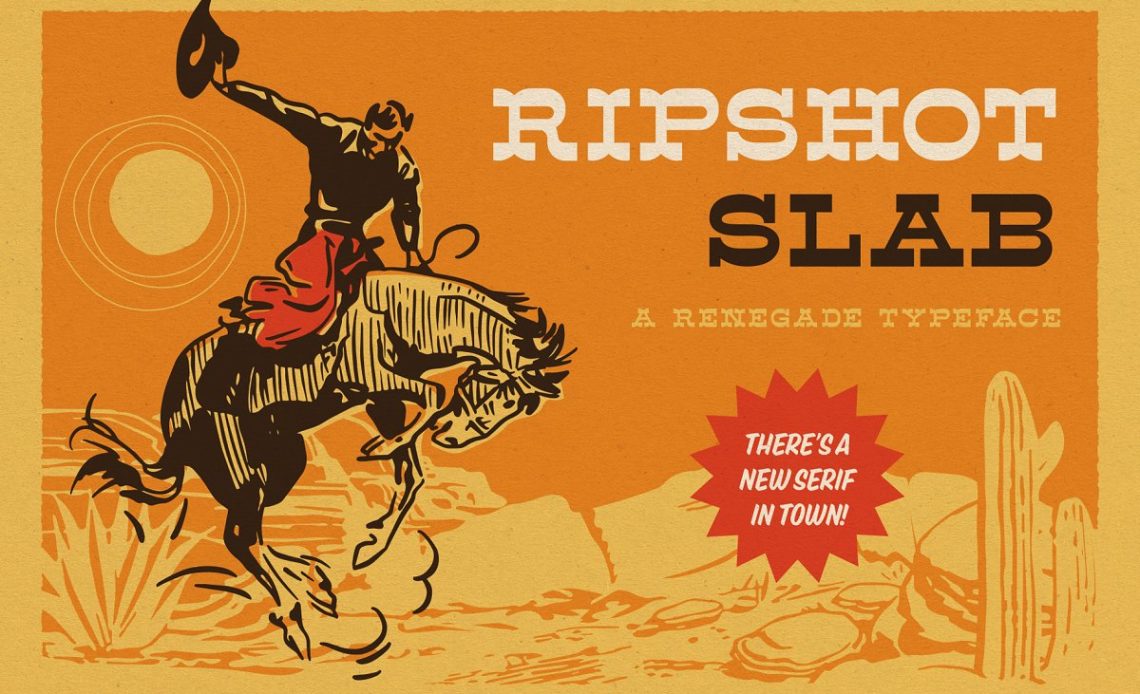
Are you on the hunt for the perfect font for your next poster presentation? Look no further than Ripshot Slab, the Western font created by Jordan Wilson. This slab serif font exudes the rough and tumble spirit of the Wild West with its thick and unapologetic design. Ripshot Slab is the perfect choice for anyone looking to make a statement with their typography.
With three unique styles to choose from, including Regular, BootCut, and the renegade SpurCut, as well as three inky, 19th century print-press versions, the Ripshot 6 are a force to be reckoned with. Each style has its own distinct personality, ensuring that you'll find the perfect fit for your project.
Whether you're working on a poster for a rodeo or a flyer for a country music festival, Ripshot Slab will help you make a bold and unforgettable statement. So don't hesitate - add this Western font to your collection today and watch your designs come to life!